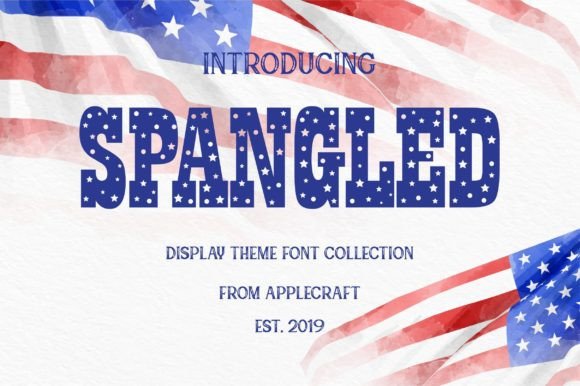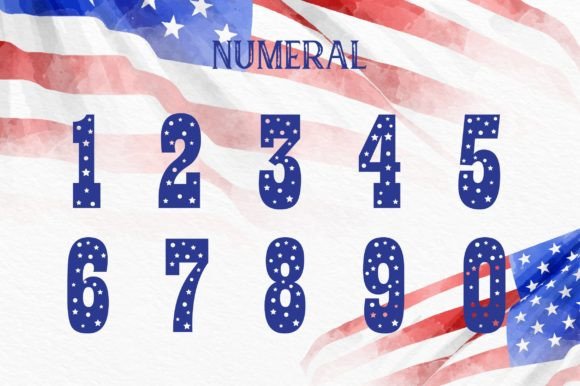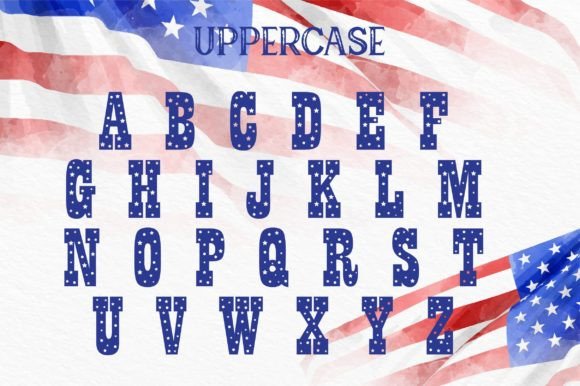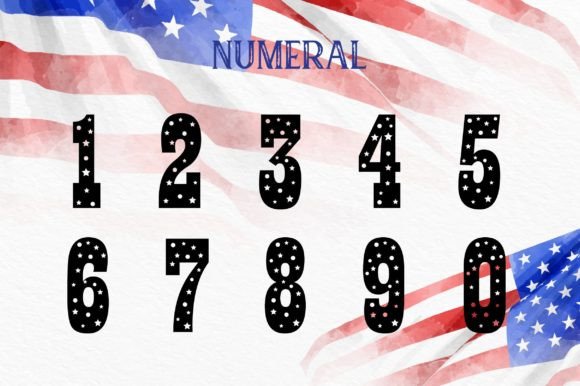
Spangled Font
About the Spangled Font
Get ready to be inspired by Spangled Font, a fresh and dynamic typeface for modern creators. Spangled is a patriotic decorative font perfect for quotes, shirt designs, websites, branding, children’s designs, SVG designs, blogs, logos, invitations, and more!
Spangled Font Usage Examples
Spangled Font Example